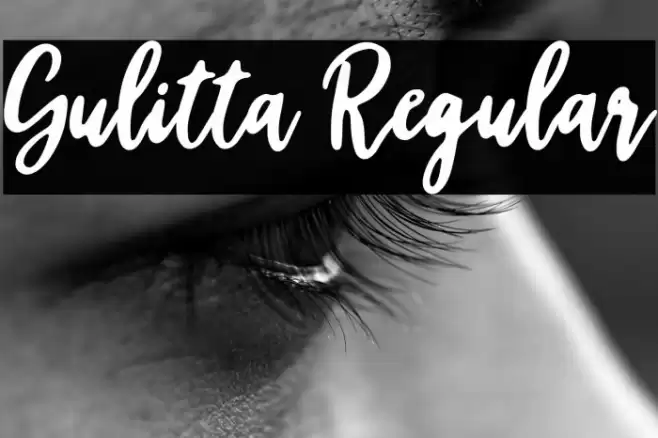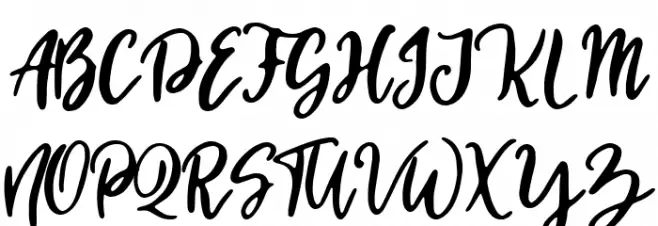
Gulitta Regular Font
Gulitta Regular Description
This font exudes a lively and dynamic script style, characterized by its fluid, cursive strokes and bold presence. The letters are interconnected, creating a seamless flow that mimics natural handwriting. The uppercase characters maintain a consistent height, while the lowercase letters vary in size, adding a playful touch. The thick, rounded strokes provide a sense of warmth and friendliness, making it ideal for creative and informal applications. Its boldness ensures high visibility, while the smooth curves and loops enhance its aesthetic appeal. The font's energetic style is perfect for projects that require a personal and approachable feel.
A bold, cursive script font with fluid, interconnected strokes from Regular fonts.
- Proposed Projects: Ideal for greeting cards, invitations, branding, and social media graphics.
- Character Spacing: Tight
- Use Case: Logos, Headlines, Invitations